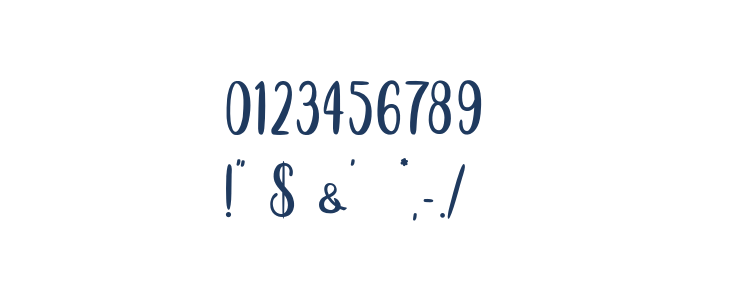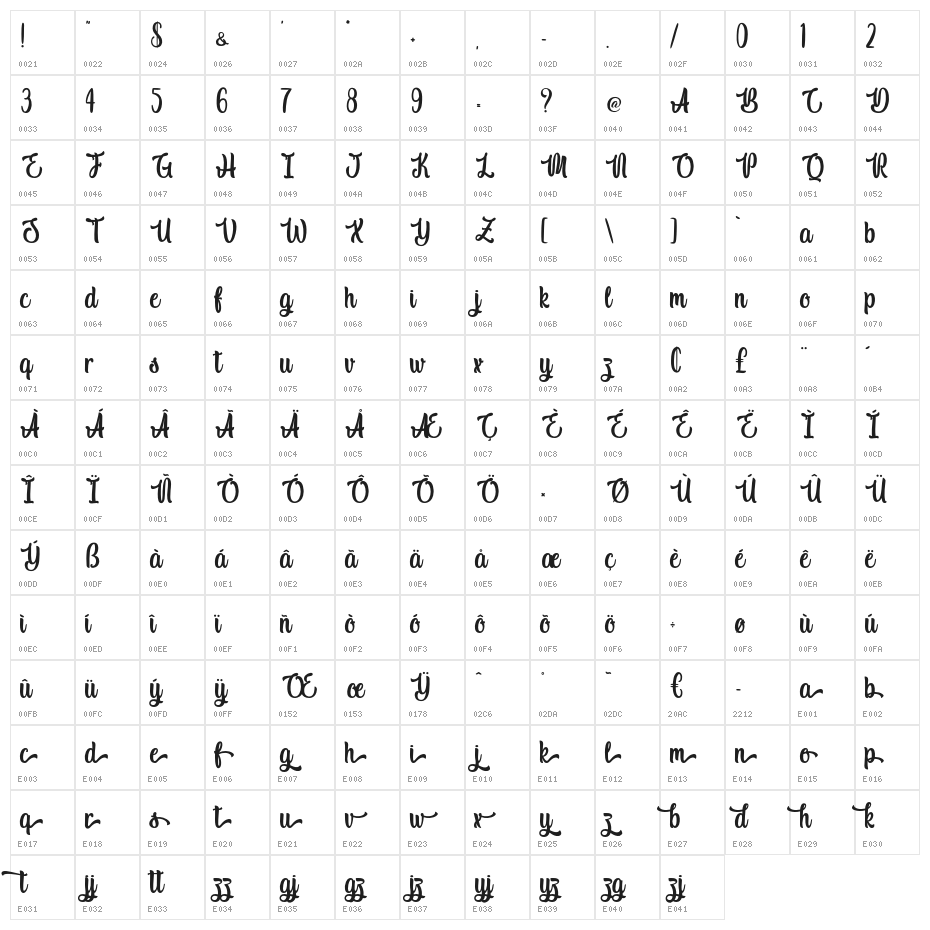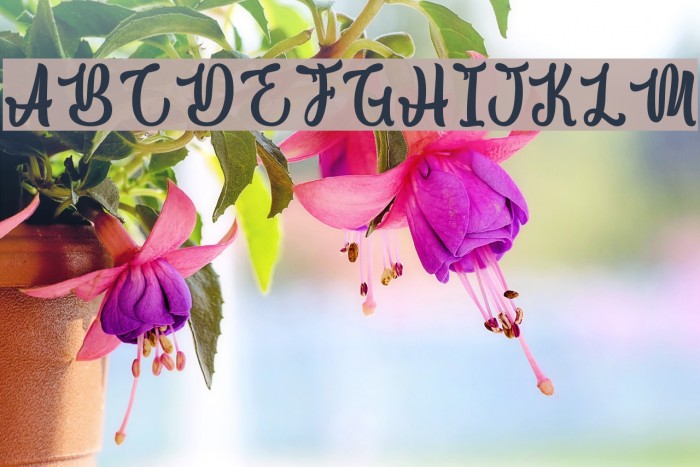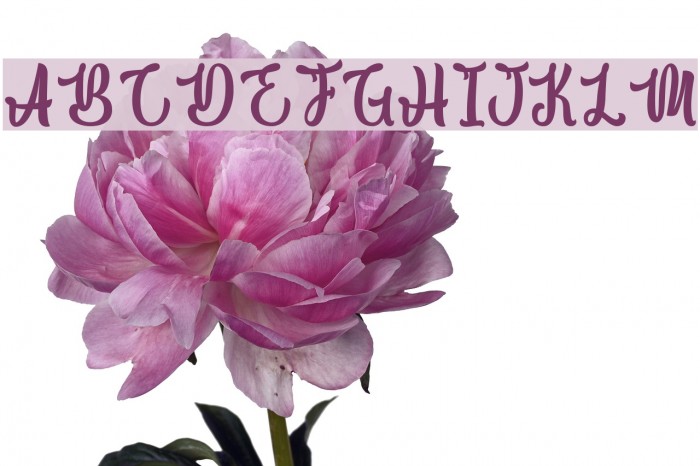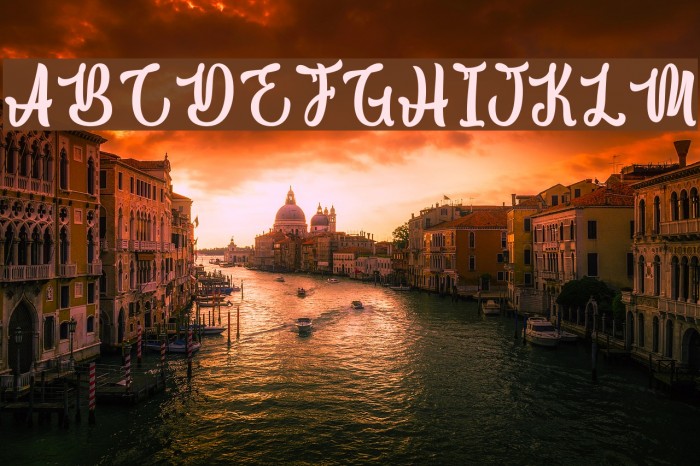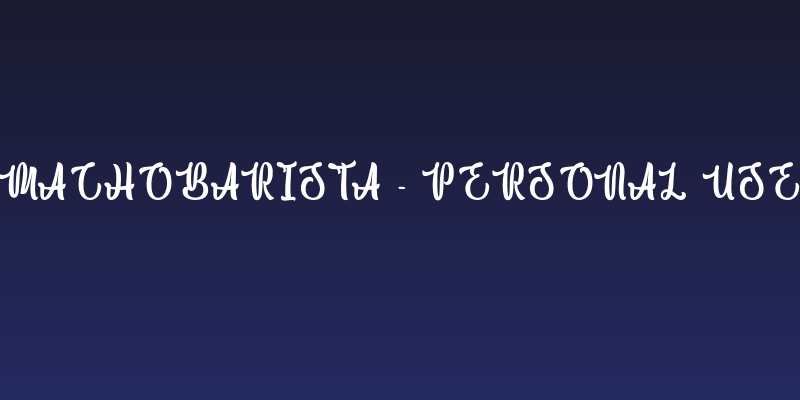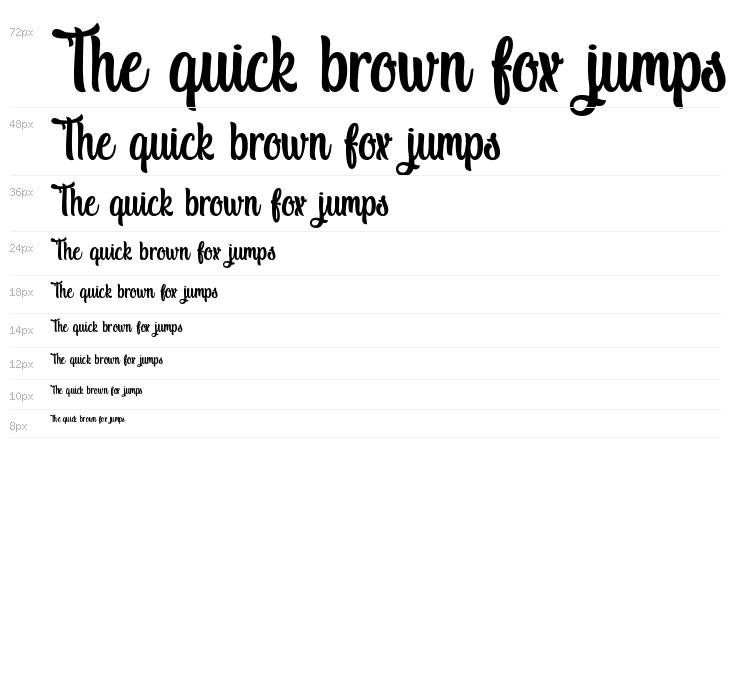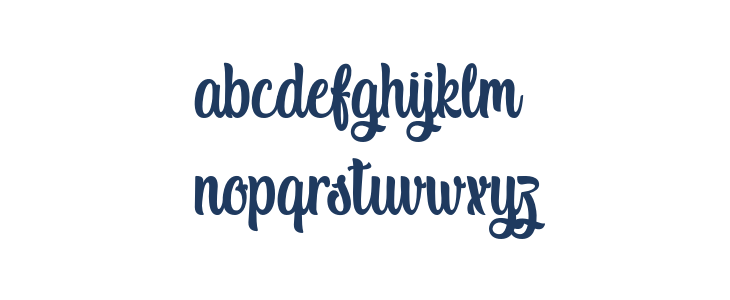
Macho Barista - Personal Use Font
Macho Barista - Personal Use Description
This font features a bold and playful script style with a handwritten feel. The uppercase letters are characterized by their flowing, cursive forms, while the lowercase letters maintain a consistent, rounded appearance. The numbers are clear and legible, matching the overall whimsical aesthetic. Special characters are creatively integrated, adding to the font's charm. The strokes are thick, providing a strong visual impact, and the overall design is both lively and approachable, making it suitable for a variety of creative applications.